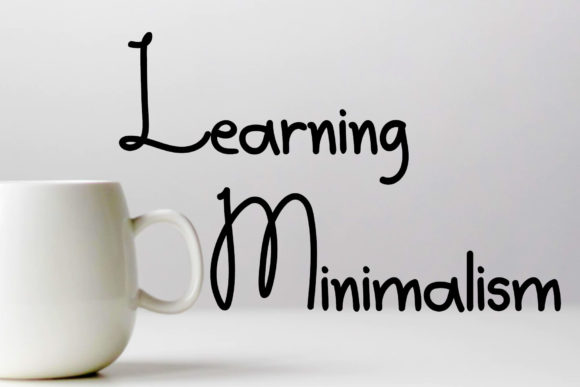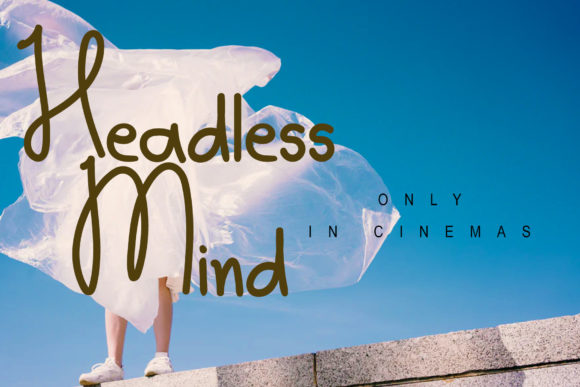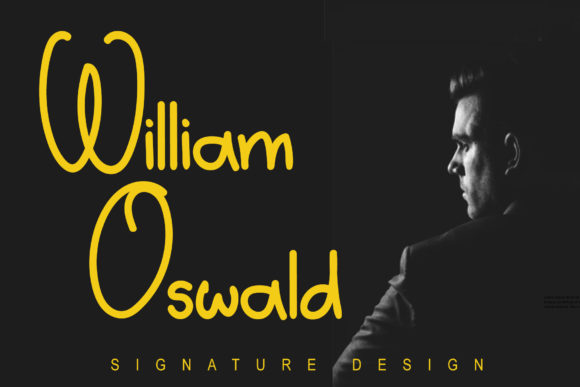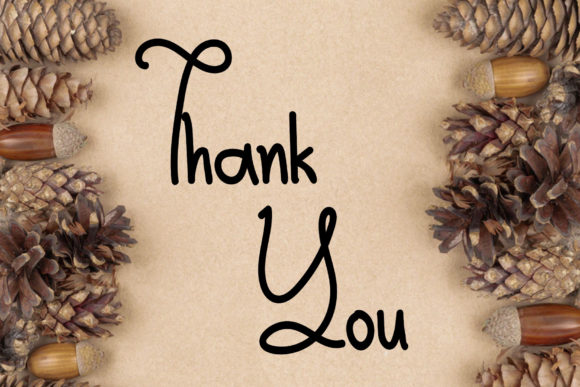
Introduction to Royal Farmhouse Font
Do you ever find yourself stuck in a creative rut, struggling to bring your design ideas to life? I know I have – and that’s exactly why I’m excited to share with you the Royal Farmhouse Font. This adorable handwritten font is the perfect solution to add a touch of whimsy and personality to your designs.
With its sweet and lively style, the Royal Farmhouse Font is a design resource that’s sure to brighten up even the most mundane projects. Whether you’re working on a high-quality brochure, creating a digital asset with a transparent background, or designing a logo for a new business, this font is sure to bring a smile to your face and a spring to your step.
Key Features of Royal Farmhouse Font
- Unique, high-quality design perfect for creative projects, including wedding invitations, labels, and packaging.
- Features a transparent background, allowing for effortless layering and customization in design software.
- Available in a single weight, ideal for creating a cohesive and elegant look in your design project.
- High-resolution font files (up to 2048×2048 pixels) ensure crisp and clear typography in both digital and print designs.
- Suitable for a wide range of creative projects, from rustic and vintage-inspired designs to modern and sophisticated layouts.
Honest Review: Royal Farmhouse Font
I recently stumbled upon the Royal Farmhouse Font while searching for a free download to enhance my design project. This font has a unique charm that immediately caught my attention.
- The Royal Farmhouse Font has a beautiful, vintage feel that’s perfect for creative projects.
- The font is highly customizable, allowing users to adjust the size, color, and spacing to suit their needs.
- The transparent background feature is a great bonus, allowing users to easily integrate the font with other design elements.
- The font may not be suitable for formal or corporate designs due to its playful, vintage aesthetic.
- The font may not be as versatile as other fonts, limiting its use in certain design applications.
Overall, I’m impressed with the Royal Farmhouse Font’s quality and versatility. It’s a great addition to any designer’s toolkit, especially for creative projects that require a unique, vintage feel.
For optimal results, use the Royal Farmhouse Font on a high-quality design project, such as a wedding invitation or a logo design. You can also experiment with different font sizes and styles to create a unique look.
The Royal Farmhouse Font is ideal for various design projects, including wedding invitations, logo designs, and business cards. Its elegant and rustic design makes it perfect for creating a unique and memorable brand identity.